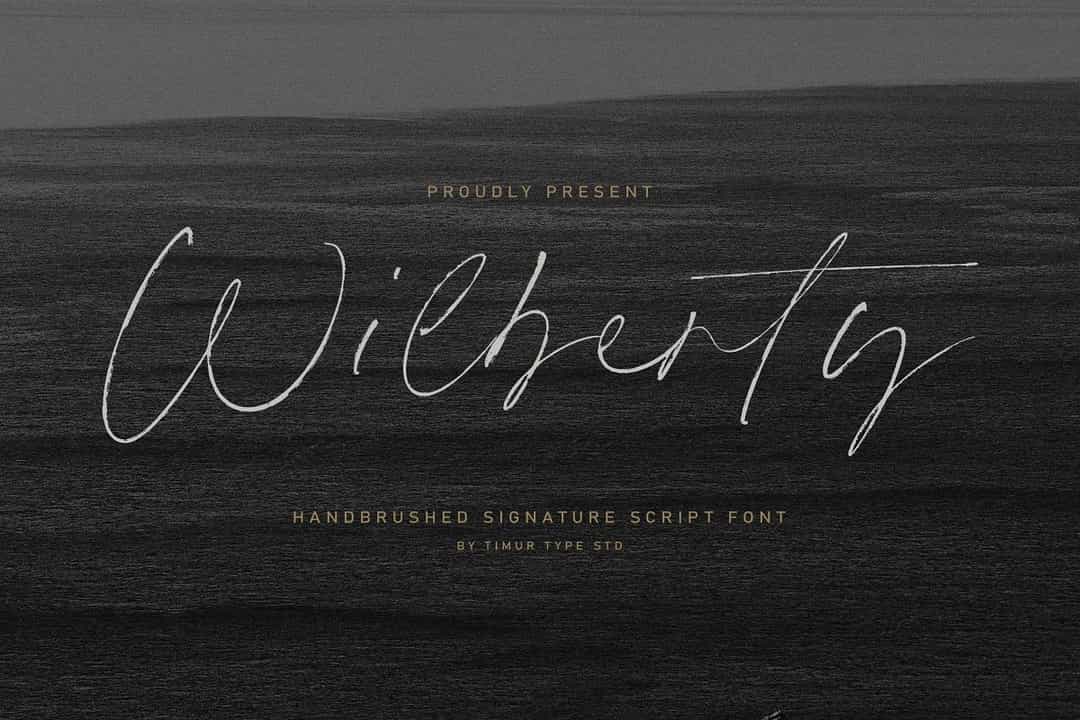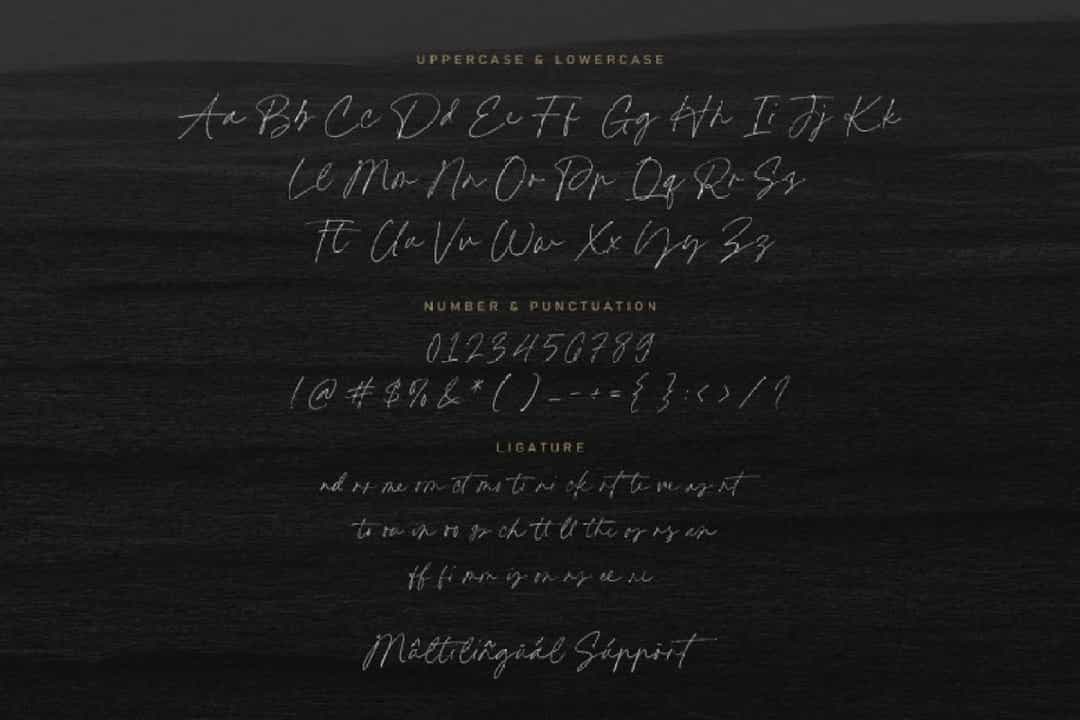
Wilberty Font
Wilberty Font is a handwritten Signature script font designed to epitomize handwritten elegance. Our timeless elegant font will enhance any brand with custom authenticity while multilingual support is also included!